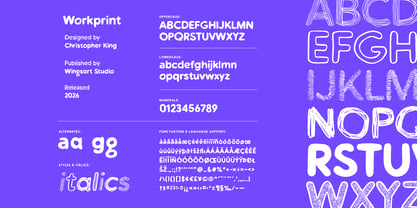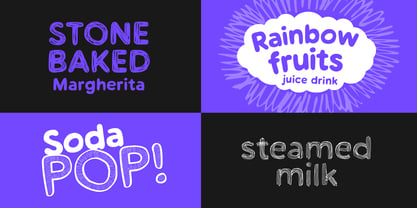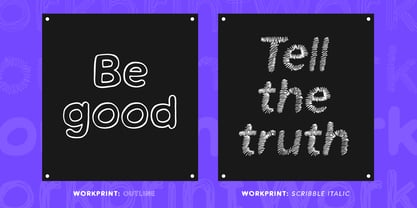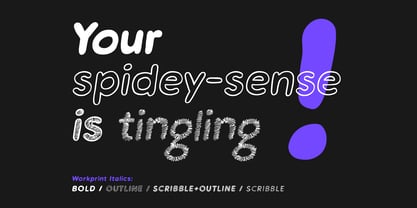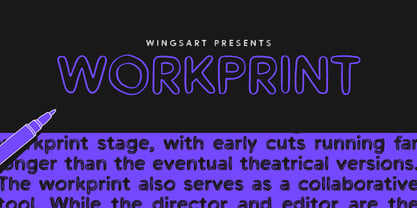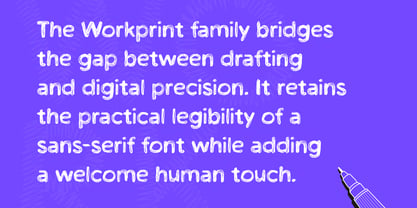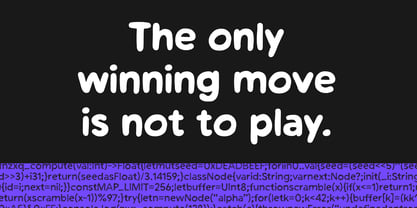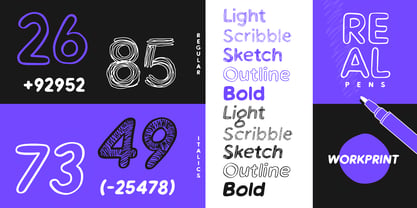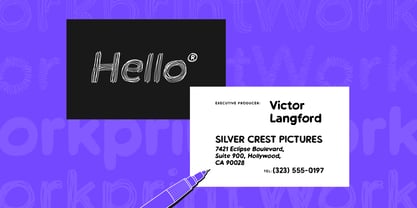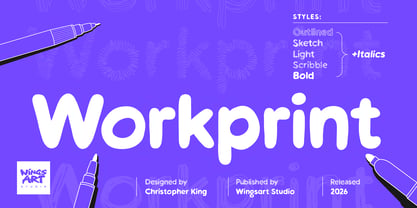
Workprint
par Wing's Art Studio
La famille de polices Workprint a été conçue par Christopher King et publiée par Wing's Art Studio. Workprint contient 16 styles et options de package familial. En savoir plus sur cette famille
The Workprint family bridges the gap between drafting and digital precision. It retains the practical legibility of a sans-serif font while adding a welcome human touch. Starting from the skeleton of a standard sans design, Workprint has been re-drawn with a range of different pens that each bring their own characteristics to the drafting table. This first release offers a range of visual styles, from Scribble to Outlined to Bold, that provide versatility in text and display sizes, with future additions working from the same blueprint to maintain consistency across your design space. Workprint contains all of the uppercase, lowercase, and numerals you would expect from a text font, along with symbols and multilingual support. Version 01 contains five unique styles, each with its own italics. Each style presents a character and weight dictated by the real pens that drew them. The Workprint font is a great choice for projects that need to step away from the corporate feel of normal sans-serif fonts and lean into a friendly and more personal vibe, be it branding for a local coffee shop, children’s book, or snack wrapper. Give it a try!
Christopher King (aka Wingsart Studio) is a Graphic Designer specialising in hand-drawn lettering for film and television titles. From blockbuster films to indie press, Wingsart Studio fonts have appeared on screens big and small around the globe. His work has been used by companies including Disney, Marvel, Apple, Netflix and Paramount Studios.The Wingsart Studio philosophy is to embrace the imperfections inherent with real pens, pencils, paper and brush. In counter-balance to an AI driven age, these fonts remain refreshingly analogue and proud of their human touch. Before a single letter turns into a digital product, countless hours are spent researching and sketching out ideas in pursuit of those perfect lines and shapes.